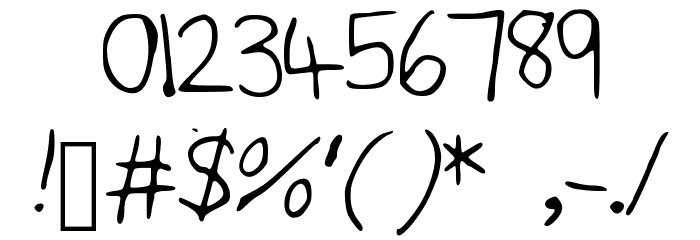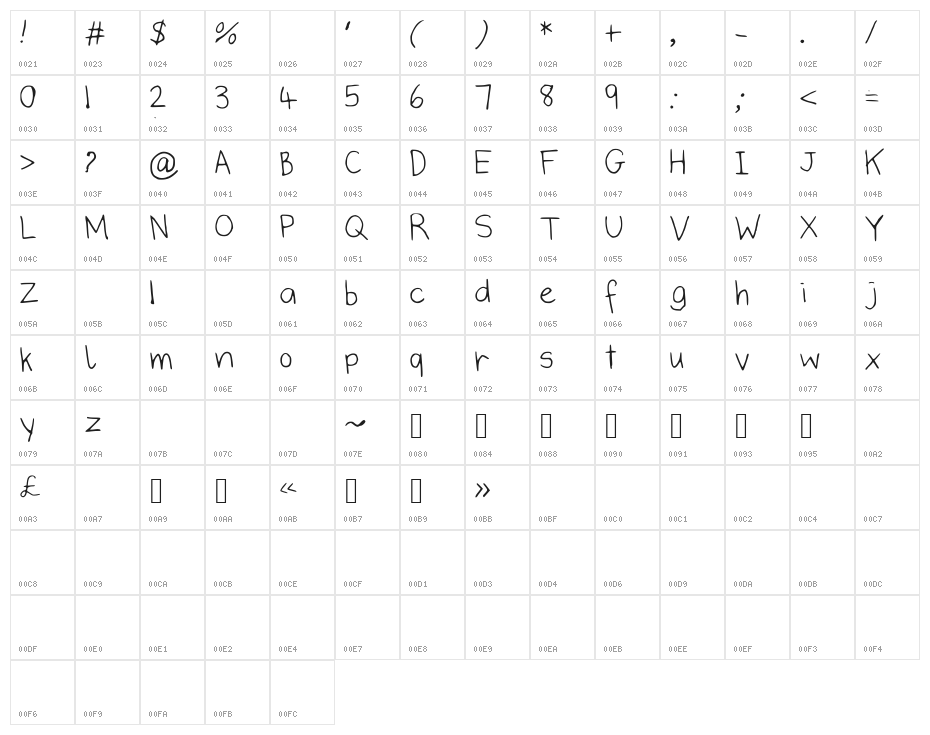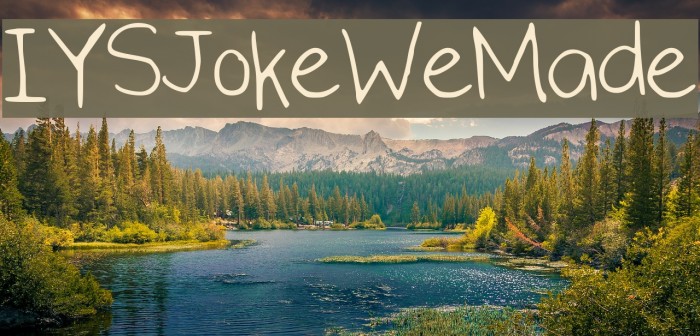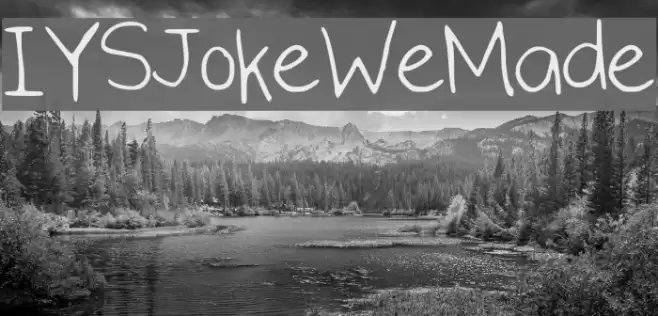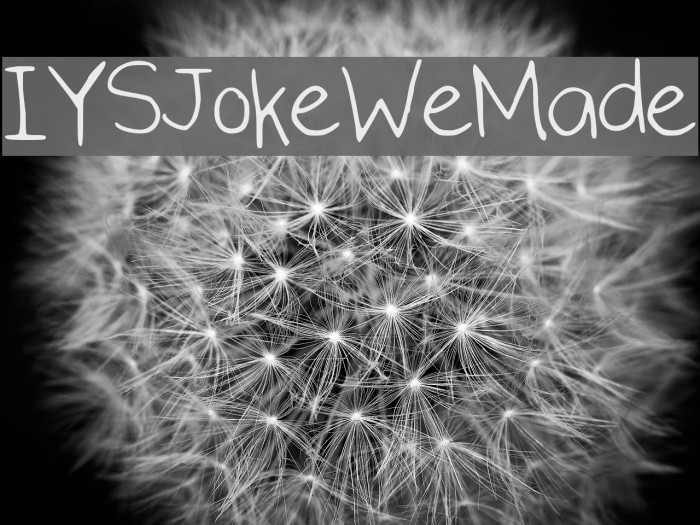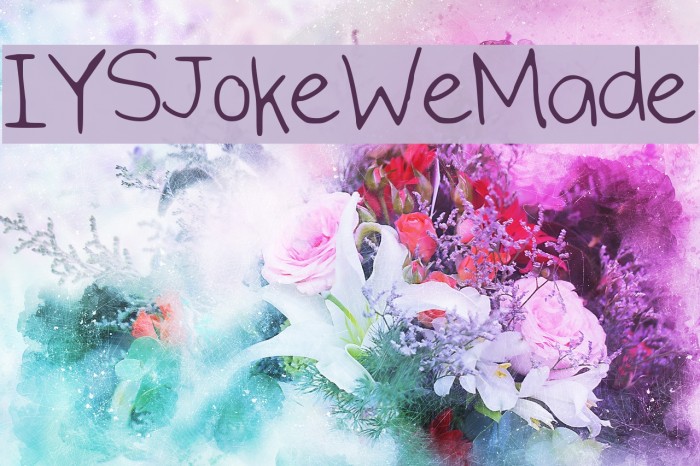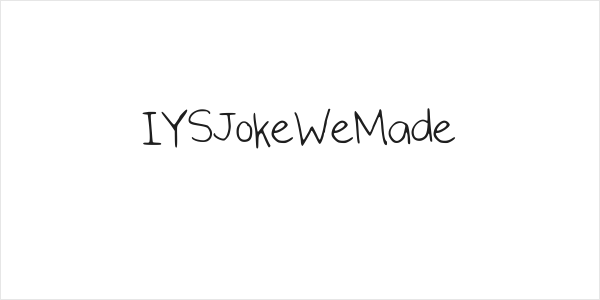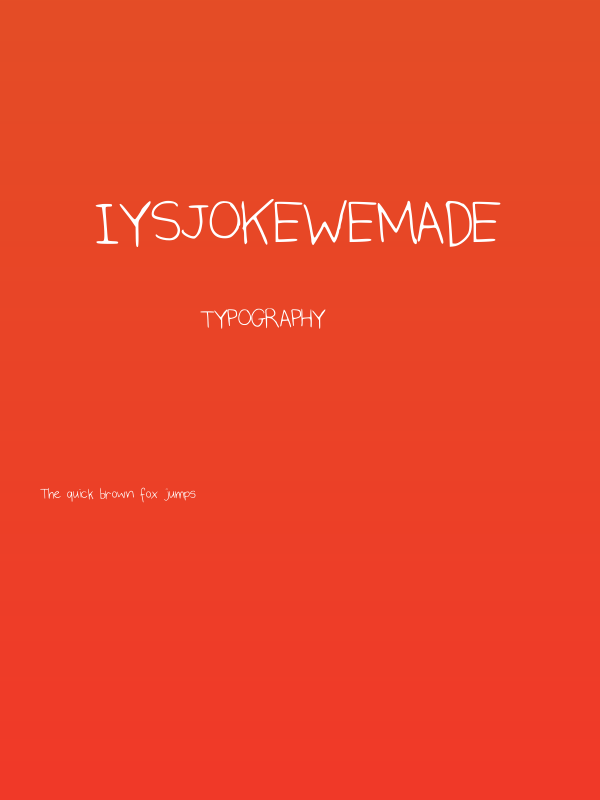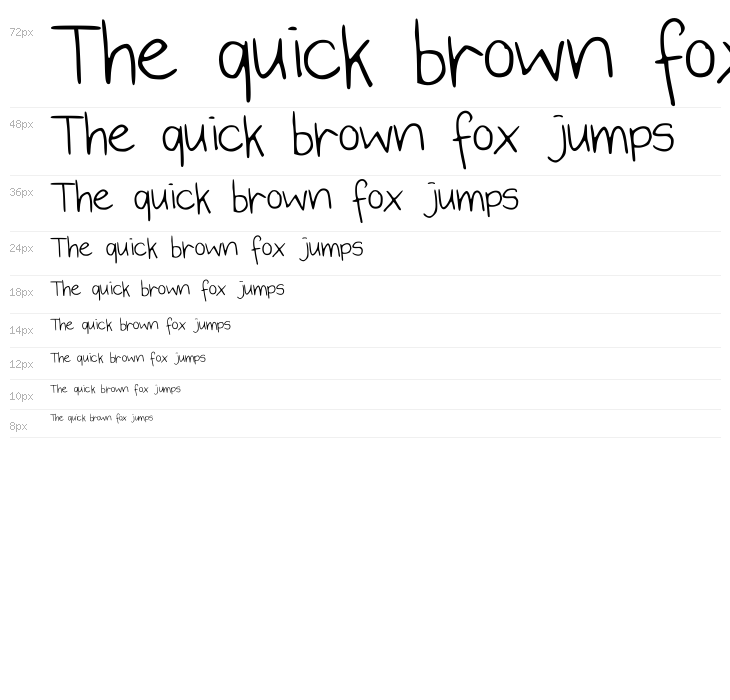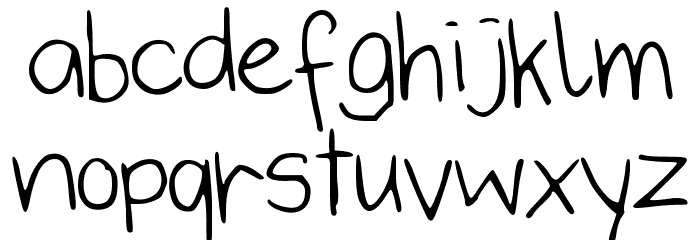
IYSJokeWeMade Font
IYSJokeWeMade Description
This playful and informal font features a handwritten style that exudes a casual and approachable vibe. The characters are slightly irregular, adding a touch of whimsy and personality. The strokes are consistent in width, giving it a uniform appearance despite its informal nature. The font includes a full set of uppercase and lowercase letters, numbers, and a variety of special characters, making it versatile for different uses. Its legibility is maintained across different sizes, making it suitable for both print and digital media. The overall aesthetic is friendly and engaging, perfect for projects that aim to convey a sense of fun and creativity.
| Proposed Projects | Ideal for children's books, greeting cards, casual branding, and social media graphics. |